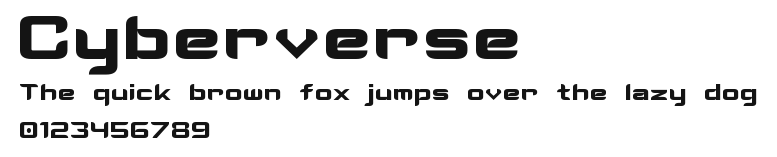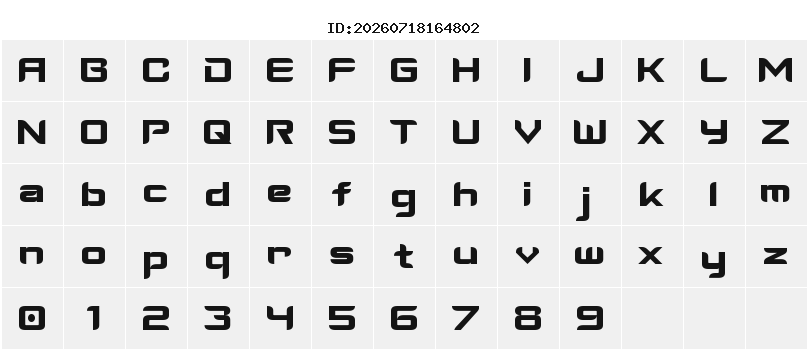
Cyberverse Preview
• Font Name: Cyberverse
• Designer: Neale Davidson
About Cyberverse.ttf
Cyberverse.ttf is a modern, elegant sans-serif font designed for ultimate readability and visual harmony. Perfect for branding, headlines, web design, and print materials.